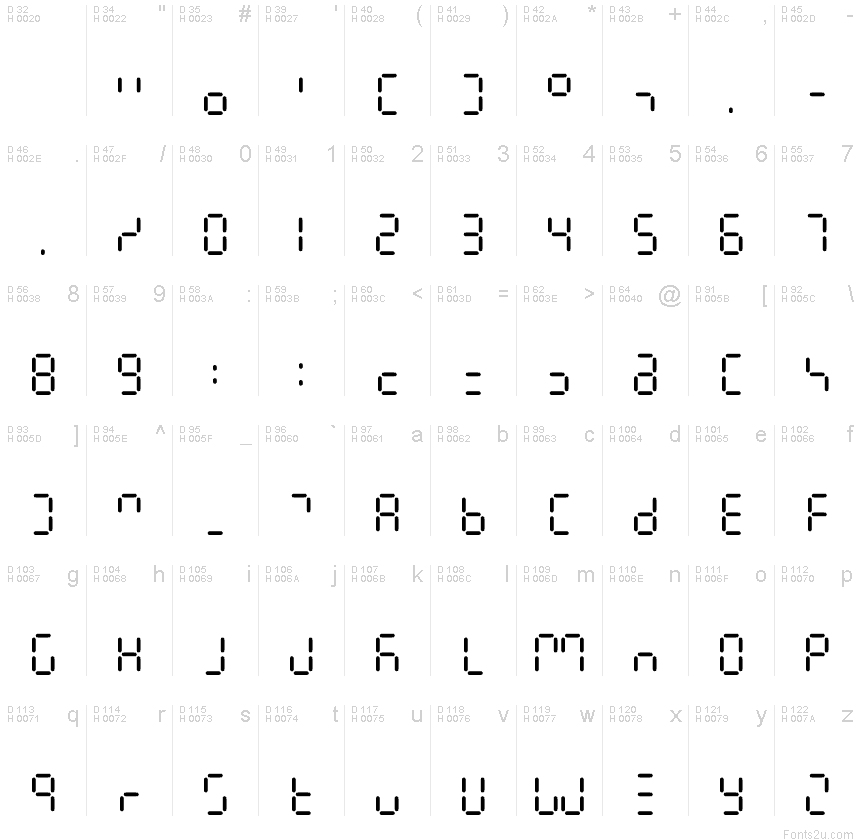
Calcula Rounded by arseniiv of FSI FontShop International GmbH is a free digital display font built entirely from separated, round-ended horizontal and vertical bars. Its modular letters echo seven-segment readouts, with open joins and steady stroke widths that keep every form precise.
Circuit diagrams and simple geometric icons share its segmented construction, making it useful for technology posters, game interfaces, and educational digital graphics. The calculator reference also suits electronics packaging and science museum signage. In illustrated work, the broken strokes can readily become part of a detailed control panel, scoreboard, or diagram rather than sitting apart as ordinary text.